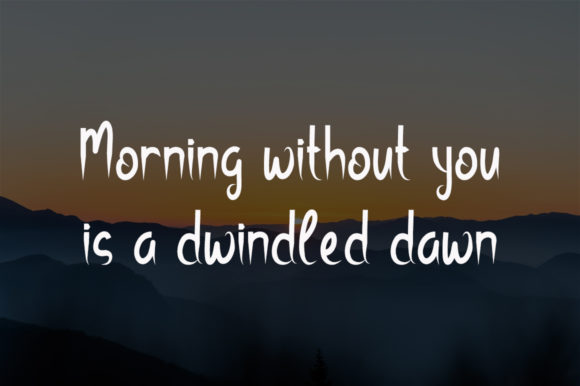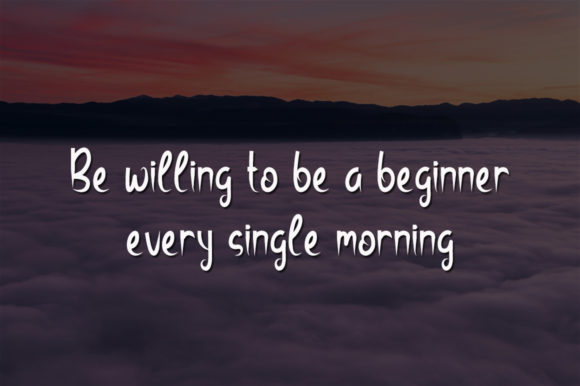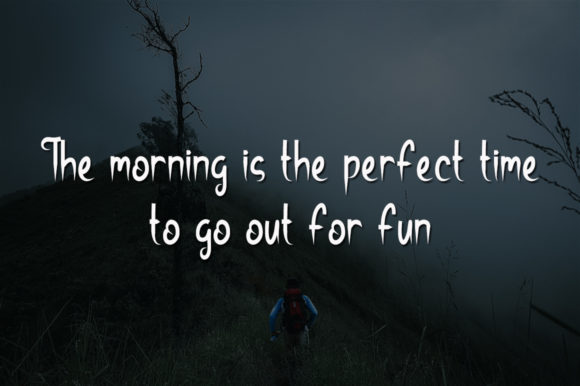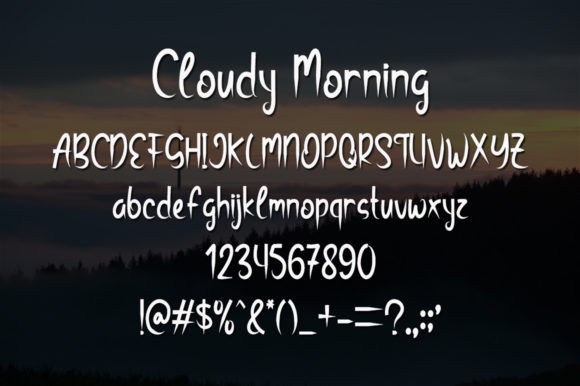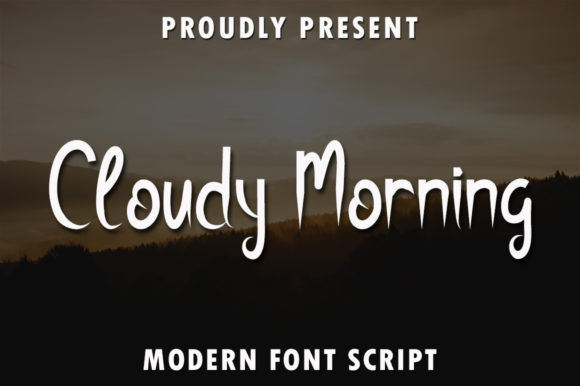
Introducing Cloudy Morning Font: Elevate Your Designs with a Touch of Elegance
Are you tired of using the same old fonts in your designs? Look no further! Cloudy Morning Font is a unique and authentic script font that can add a touch of sophistication to your projects. In this article, we’ll explore the features and benefits of Cloudy Morning Font, and why it’s a must-have for designers and crafters.
What is Cloudy Morning Font?
Cloudy Morning Font is a distinct and genuine script font that strikes the perfect balance between elegance and readability. It’s not too thin and not too thick, making it versatile and suitable for a wide range of design applications. The font’s balanced and varied strokes add a touch of uniqueness, making it perfect for designers looking to add some personality to their work.
Key Features of Cloudy Morning Font
- Unique and Authentic Design: Cloudy Morning Font boasts a one-of-a-kind design that sets it apart from other script fonts.
- Balanced and Varied Strokes: The font’s strokes are carefully crafted to provide a perfect balance between thick and thin, making it easy to read and visually appealing.
- Versatile and Adaptable: Cloudy Morning Font can be used in a variety of design applications, from branding and advertising to packaging and crafting.
- Elegant and Sophisticated: The font’s elegant and sophisticated design makes it perfect for designers looking to add a touch of luxury to their work.
Benefits of Using Cloudy Morning Font
So, why should you choose Cloudy Morning Font for your designs? Here are just a few benefits:
- Stand Out from the Crowd: With Cloudy Morning Font, you can add a unique touch to your designs and stand out from the competition.
- Enhance Readability: The font’s balanced and varied strokes make it easy to read, even at smaller sizes.
- Boost Creativity: Cloudy Morning Font’s elegant and sophisticated design can inspire creativity and help you think outside the box.
- Perfect for Branding and Advertising: The font’s luxurious and high-end feel makes it perfect for branding and advertising applications.
How to Use Cloudy Morning Font
In conclusion, Cloudy Morning Font is a unique and authentic script font that can elevate your designs to the next level. With its balanced and varied strokes, elegant and sophisticated design, and versatility, it’s a must-have for designers and crafters. Whether you’re looking to add a touch of luxury to your branding, create a visually appealing advertisement, or simply add some personality to your craft projects, Cloudy Morning Font is the perfect choice.